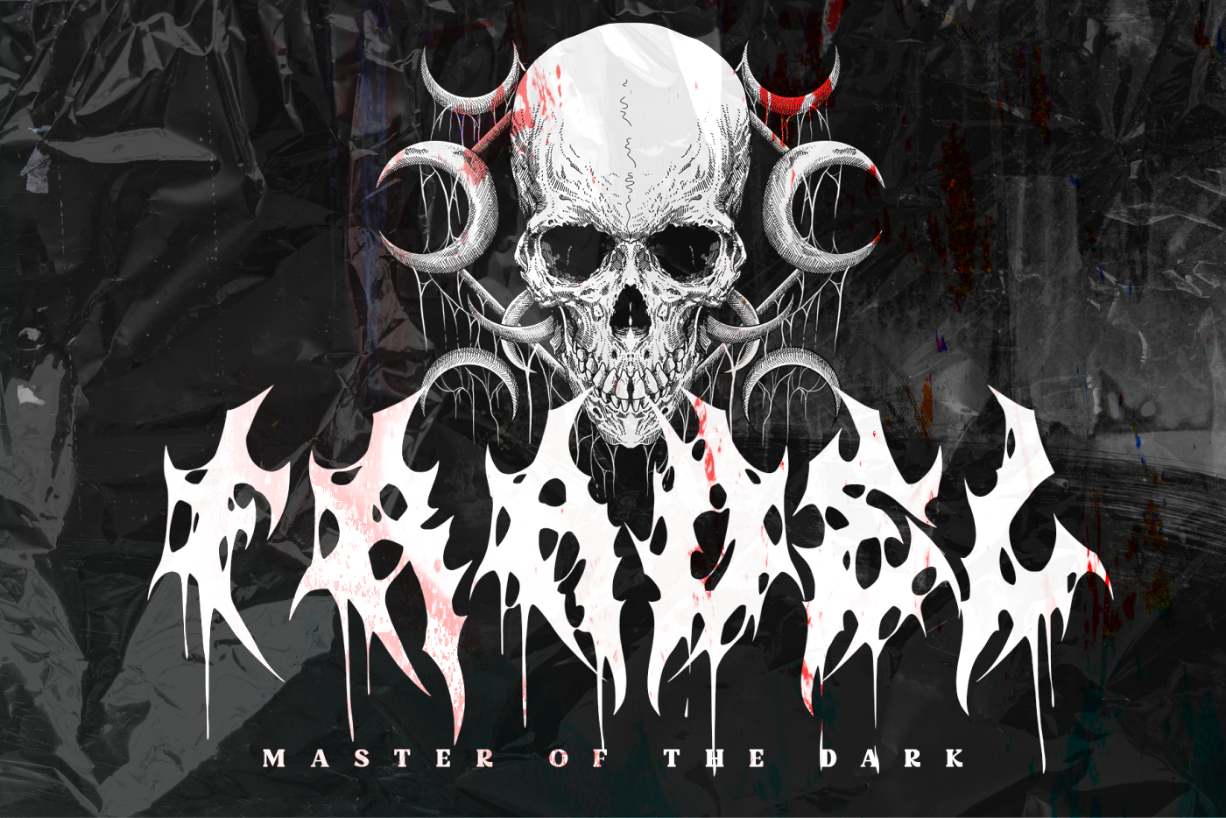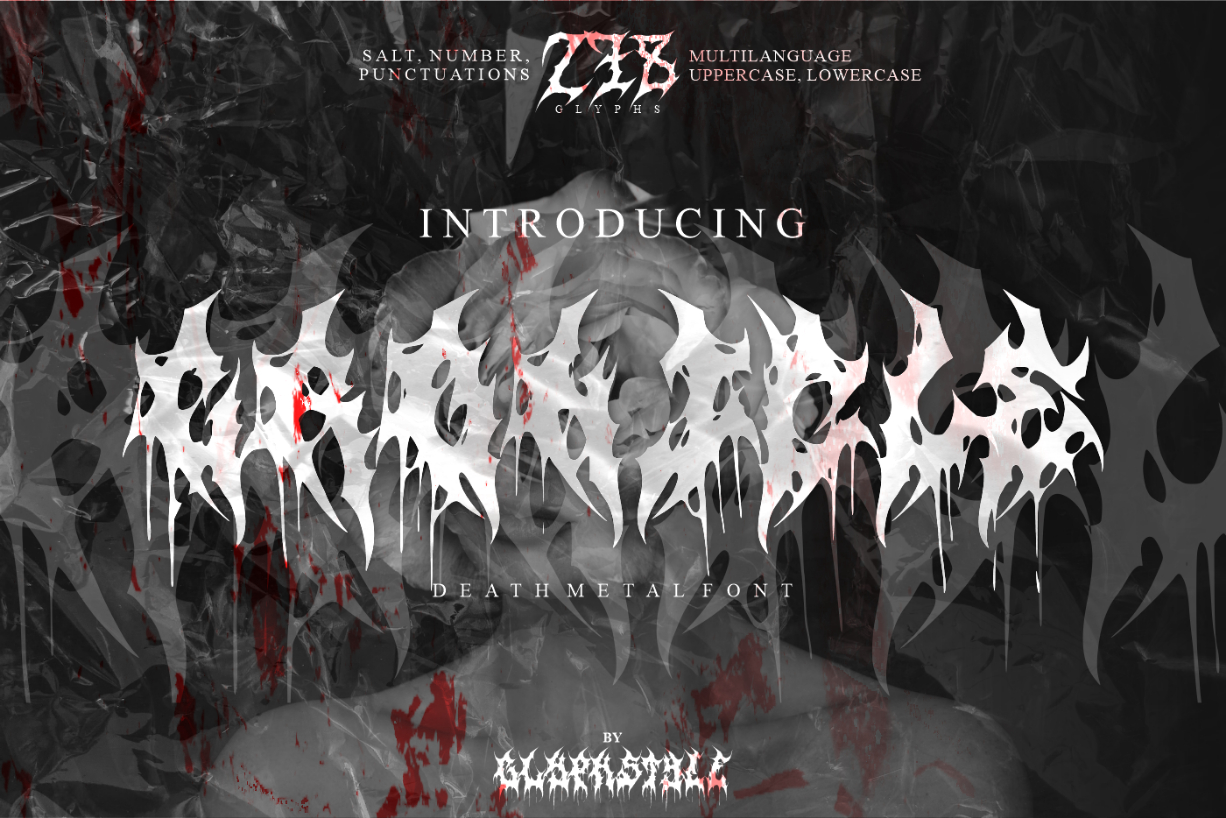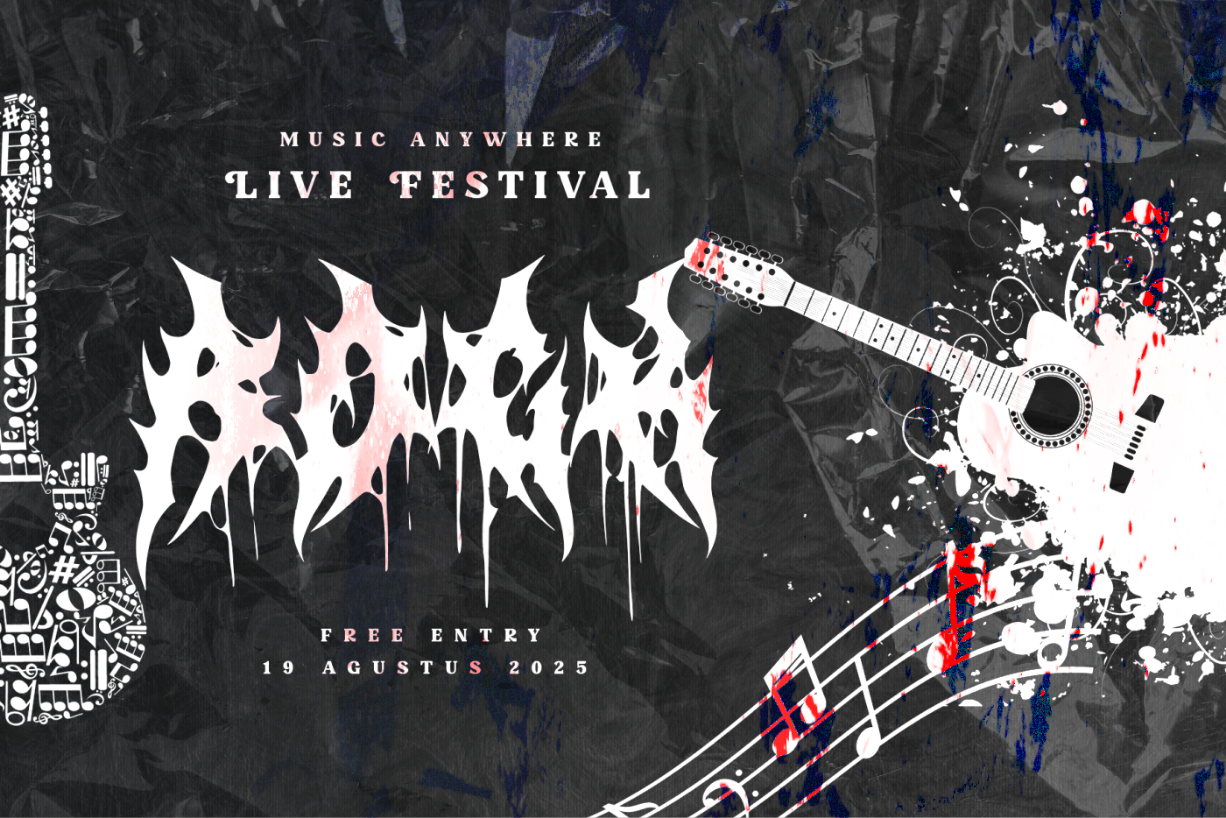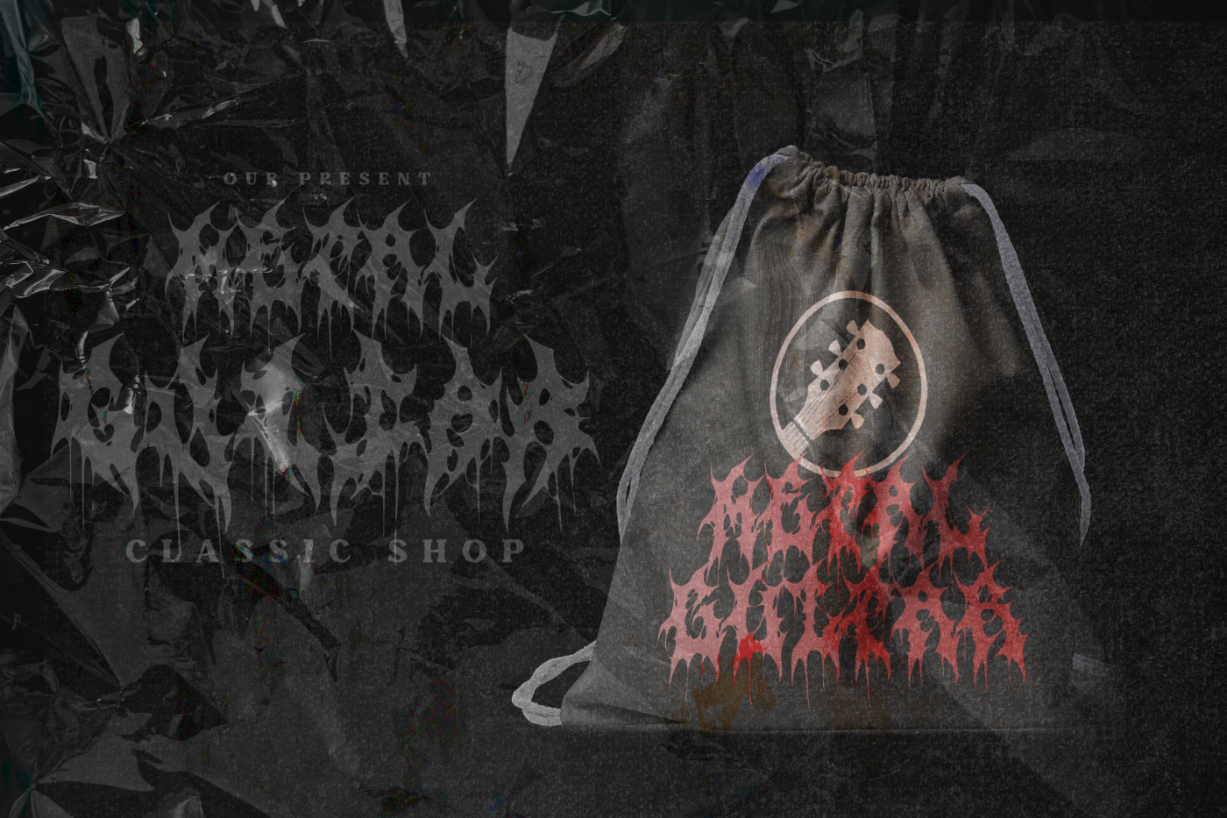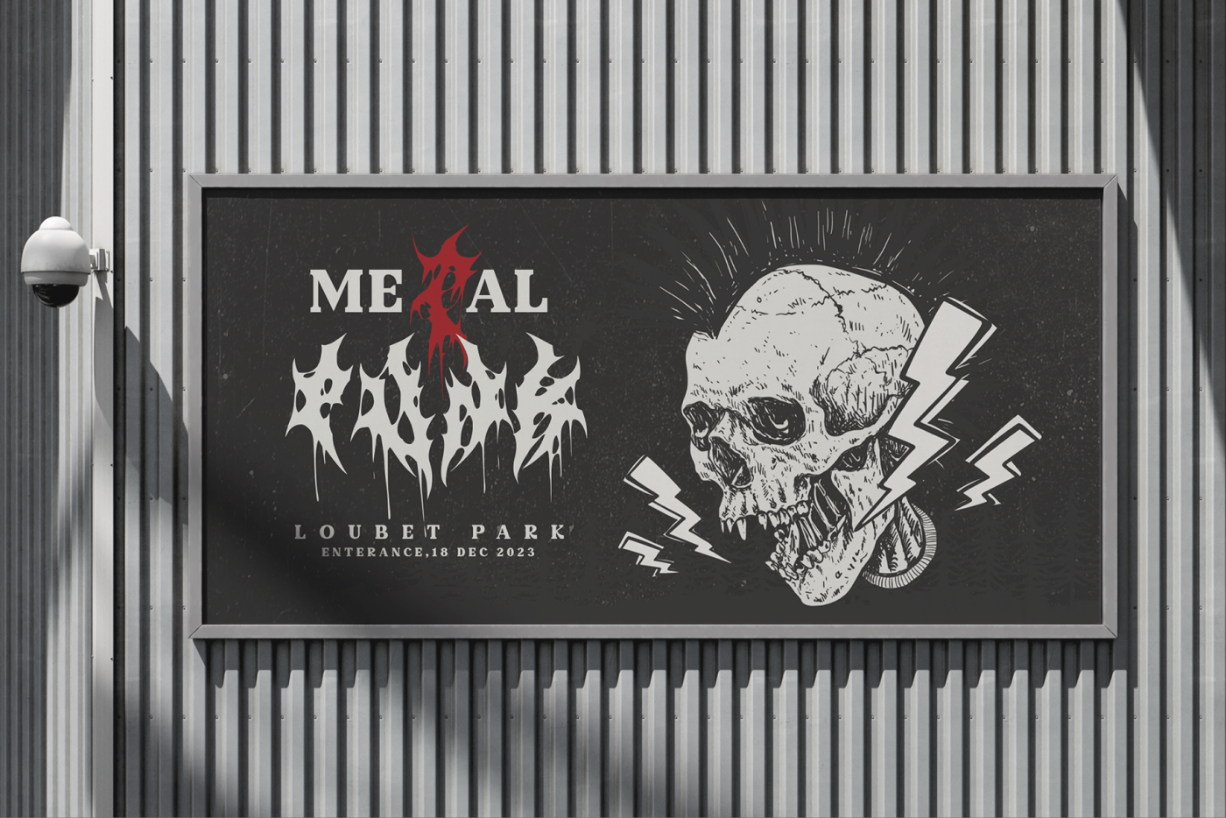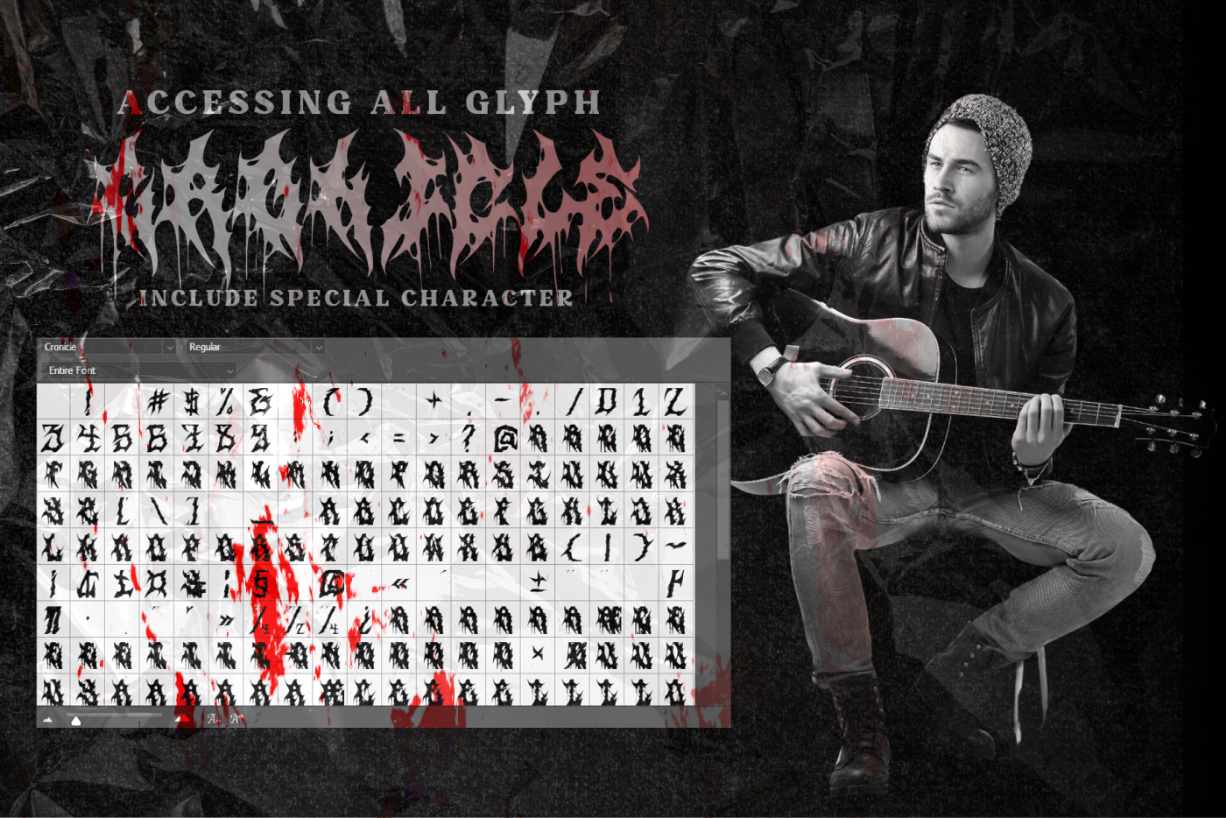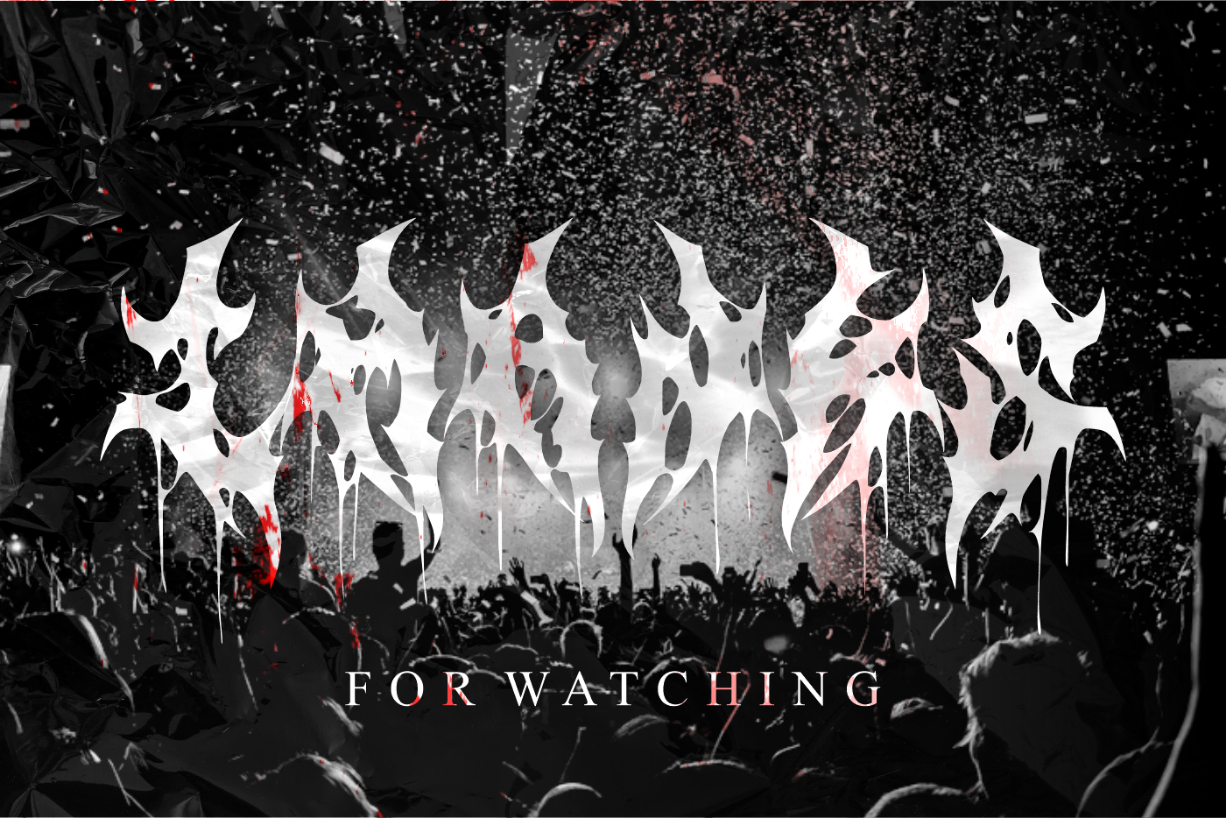
Cronicle Font
About Cronicle Font
Unleash your dark side with “Cronicle”, a horror and death metal blackletter font. Its sharp edges and intricate details will send shivers down your spine, perfect for any project that requires a menacing and eerie feel. Whether for album art or horror movie posters, this font will captivate and terrify your audience.